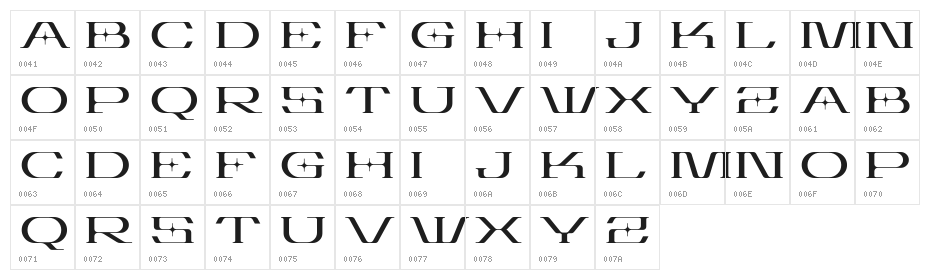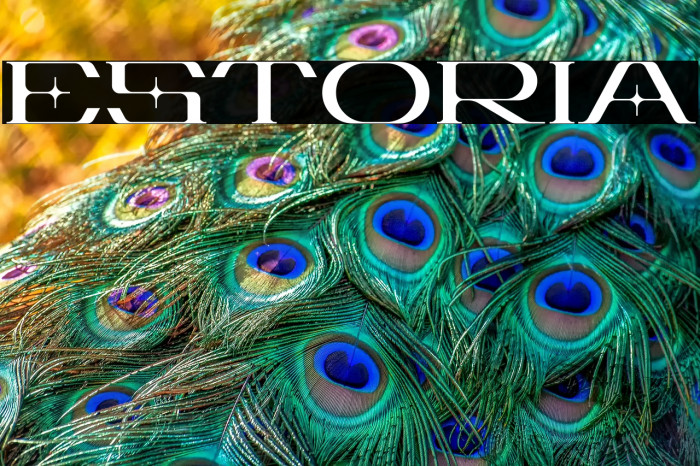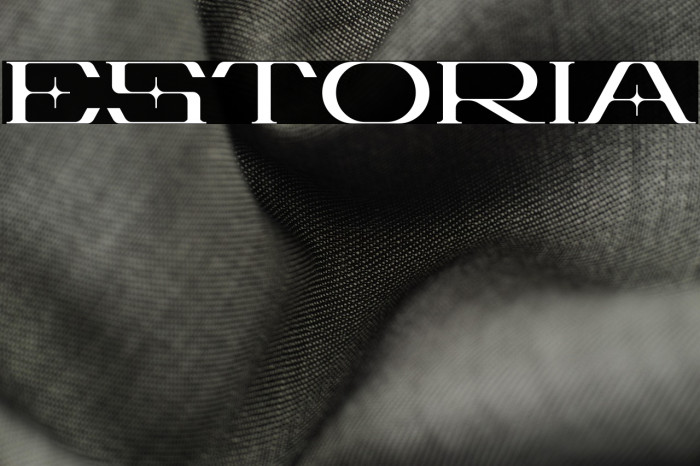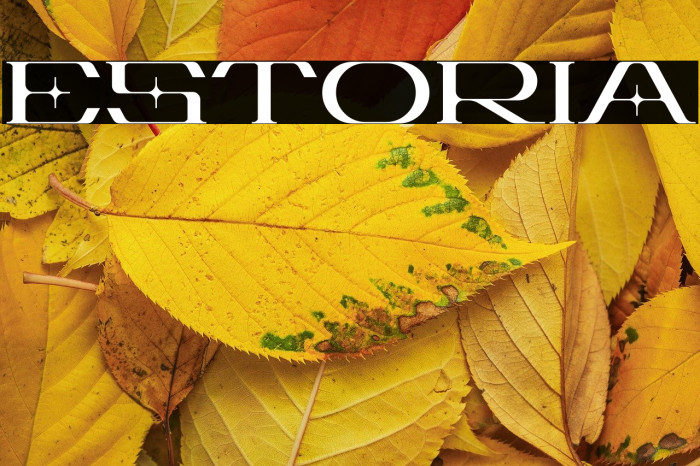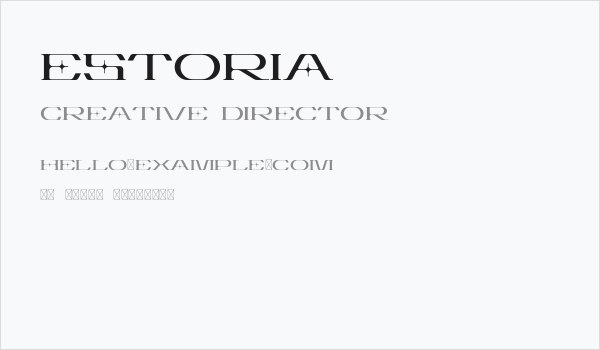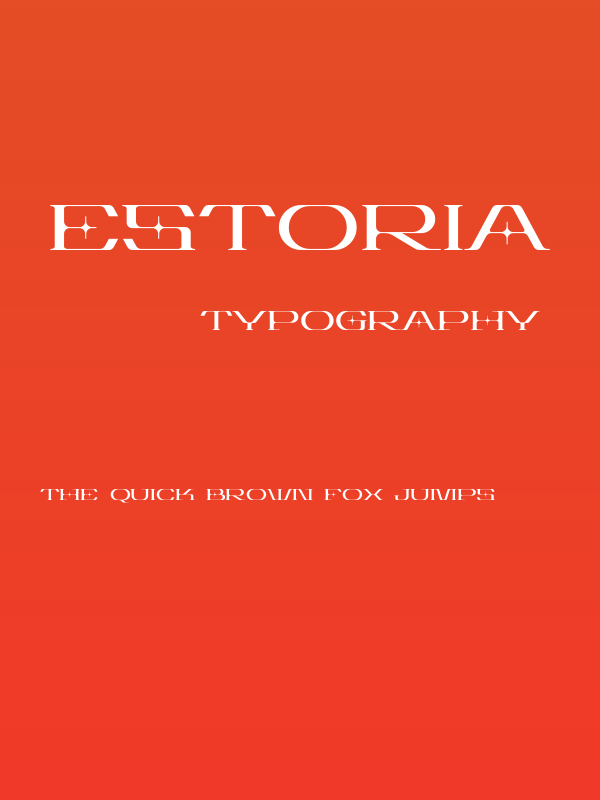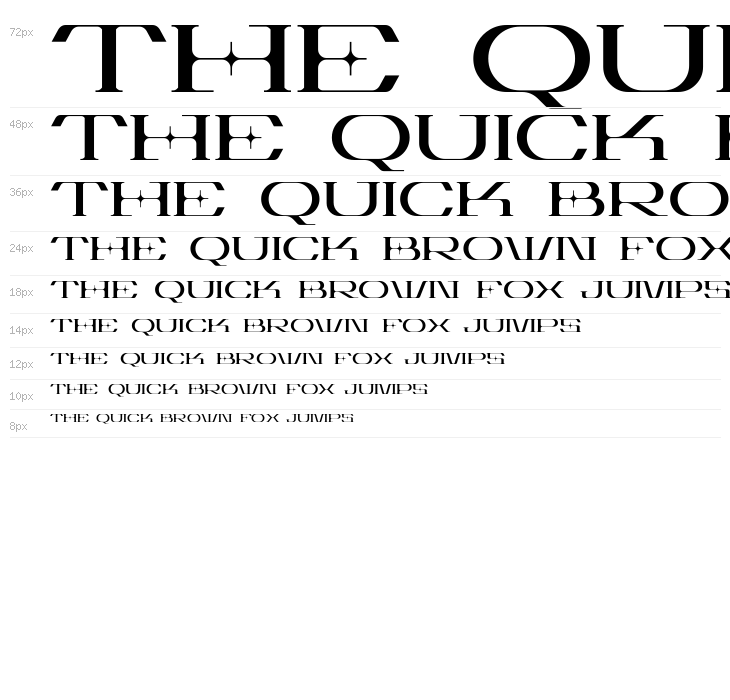
Estoria Font
Estoria Description
This font features a unique and decorative style with intricate details that give it a distinct and artistic appearance. The characters are adorned with sharp, angular elements and star-like embellishments, creating a sense of elegance and sophistication. The overall design is bold and striking, making it suitable for projects that require a strong visual impact. The uppercase letters are particularly elaborate, while the lowercase letters maintain a consistent style. The font's geometric shapes and symmetrical patterns contribute to its modern and stylish look, making it a great choice for creative and innovative designs.
| Proposed Projects | Ideal for branding, logos, posters, and artistic projects that require a bold and decorative typeface. |